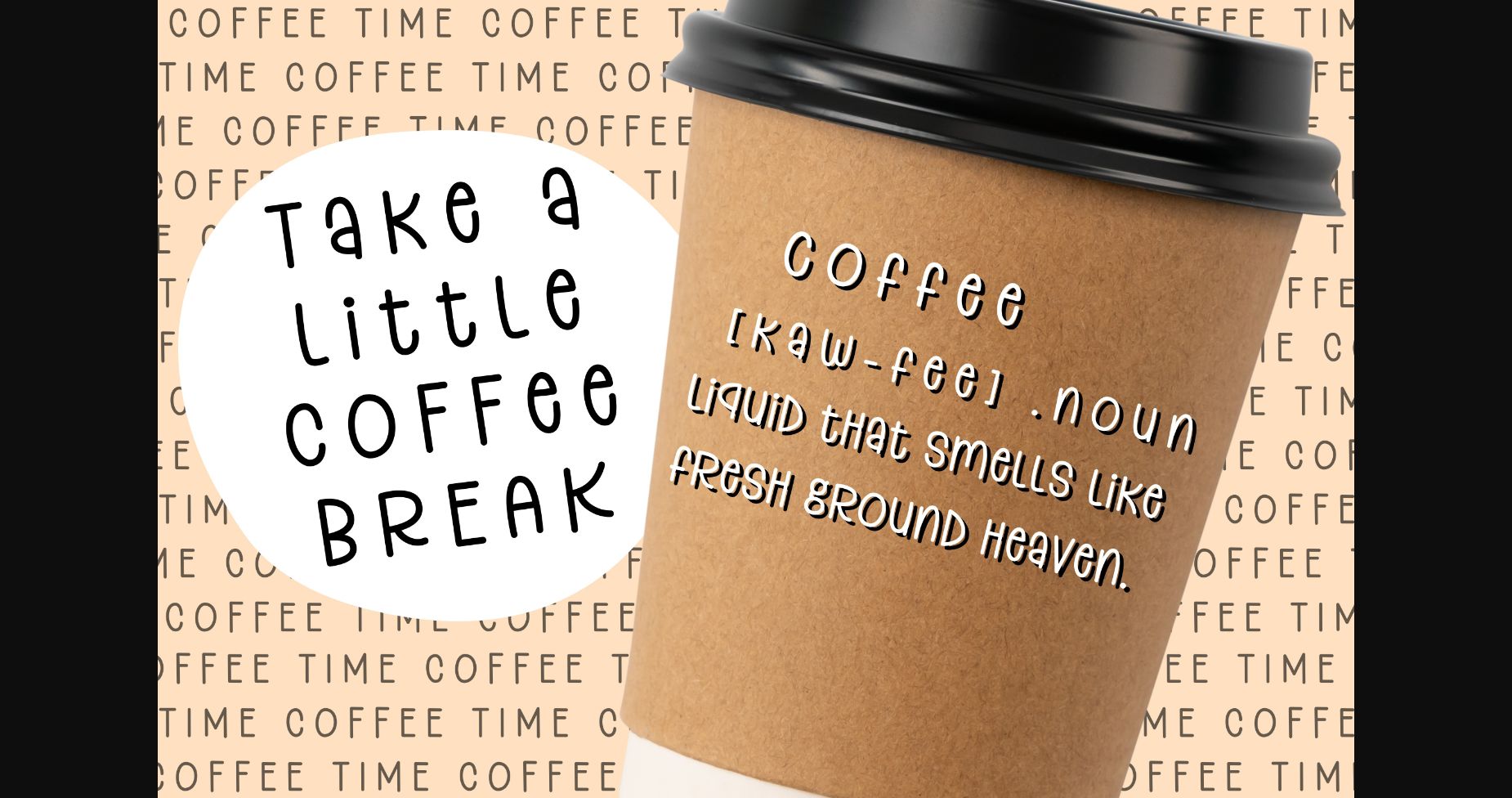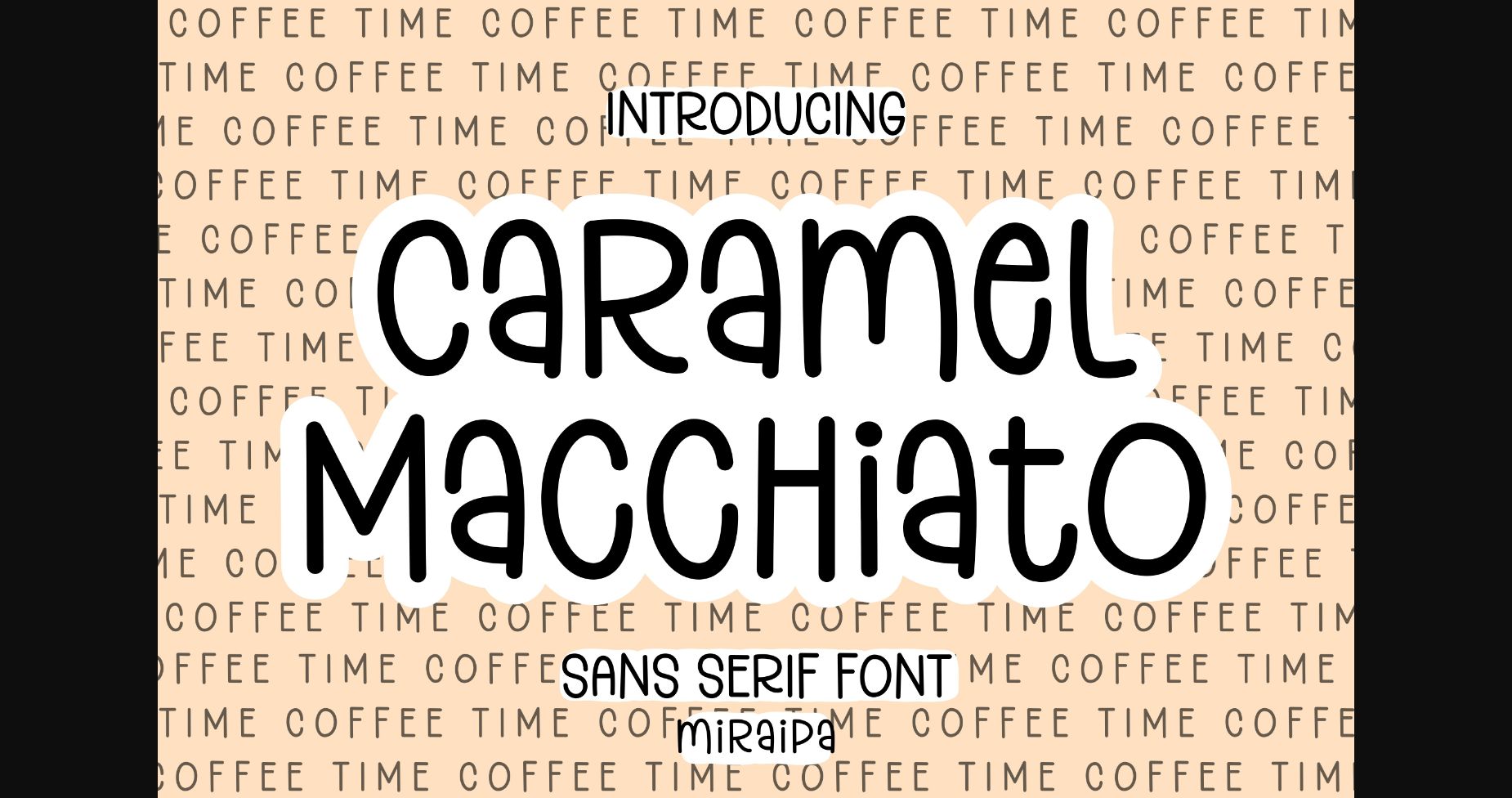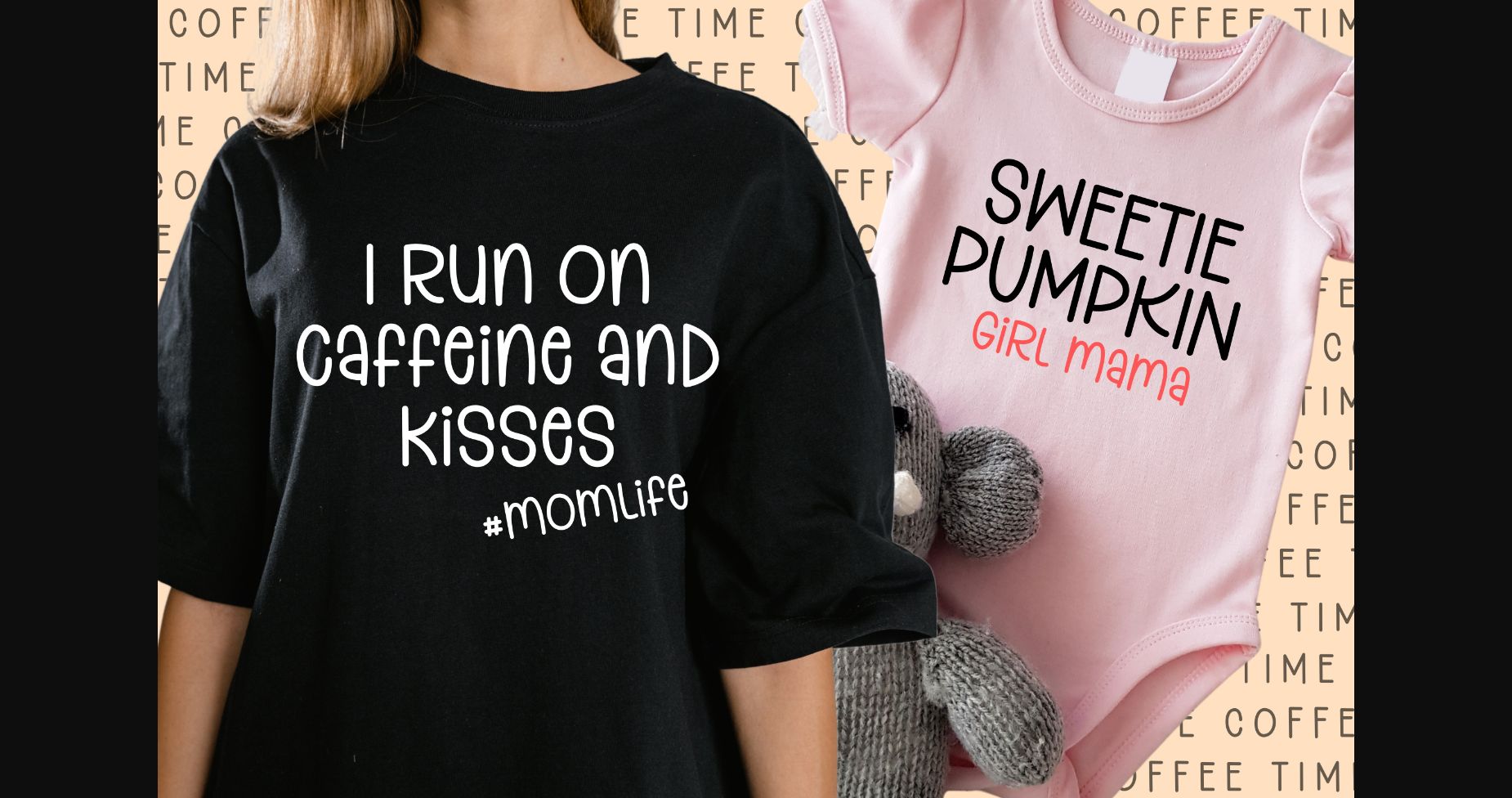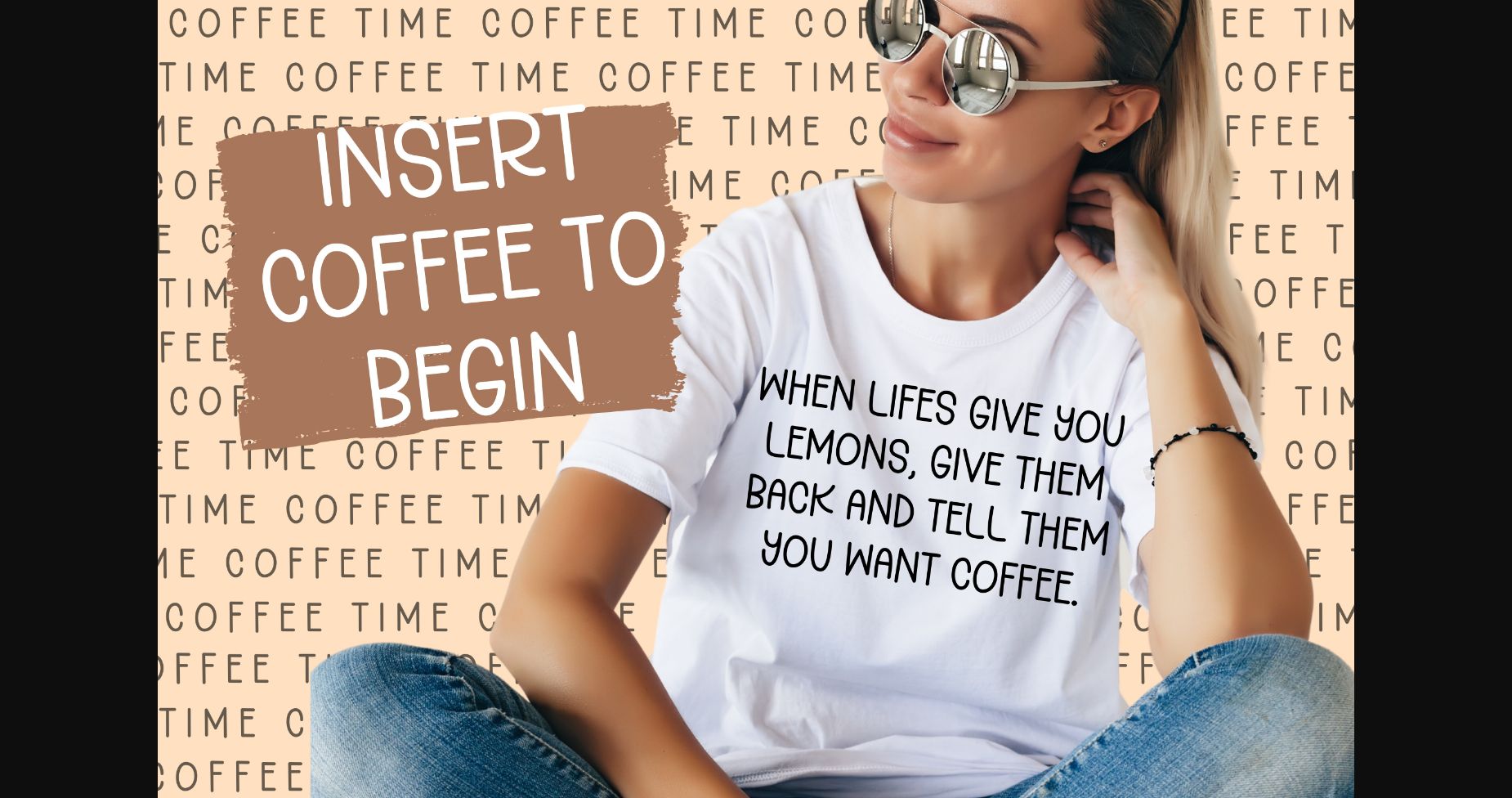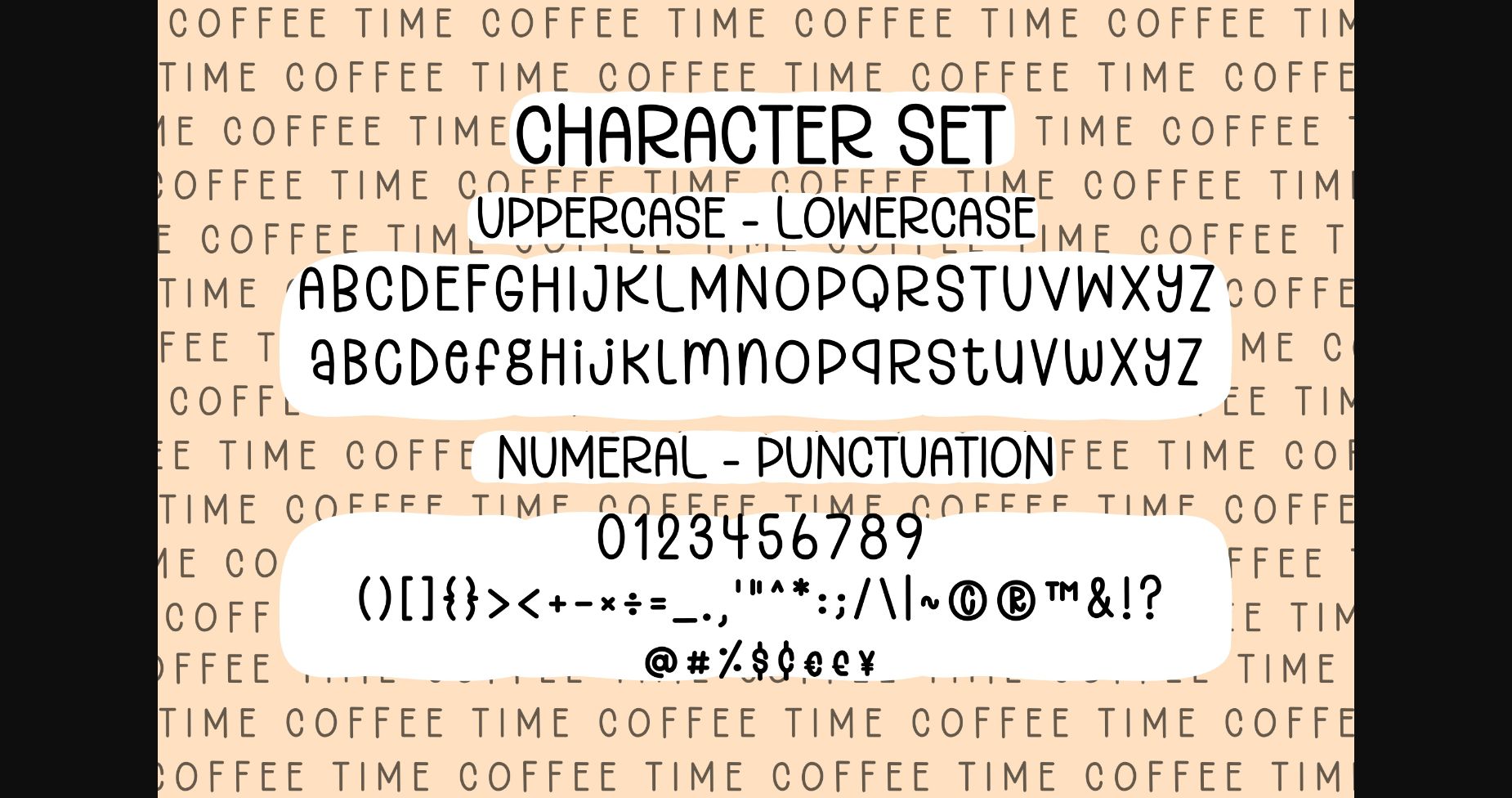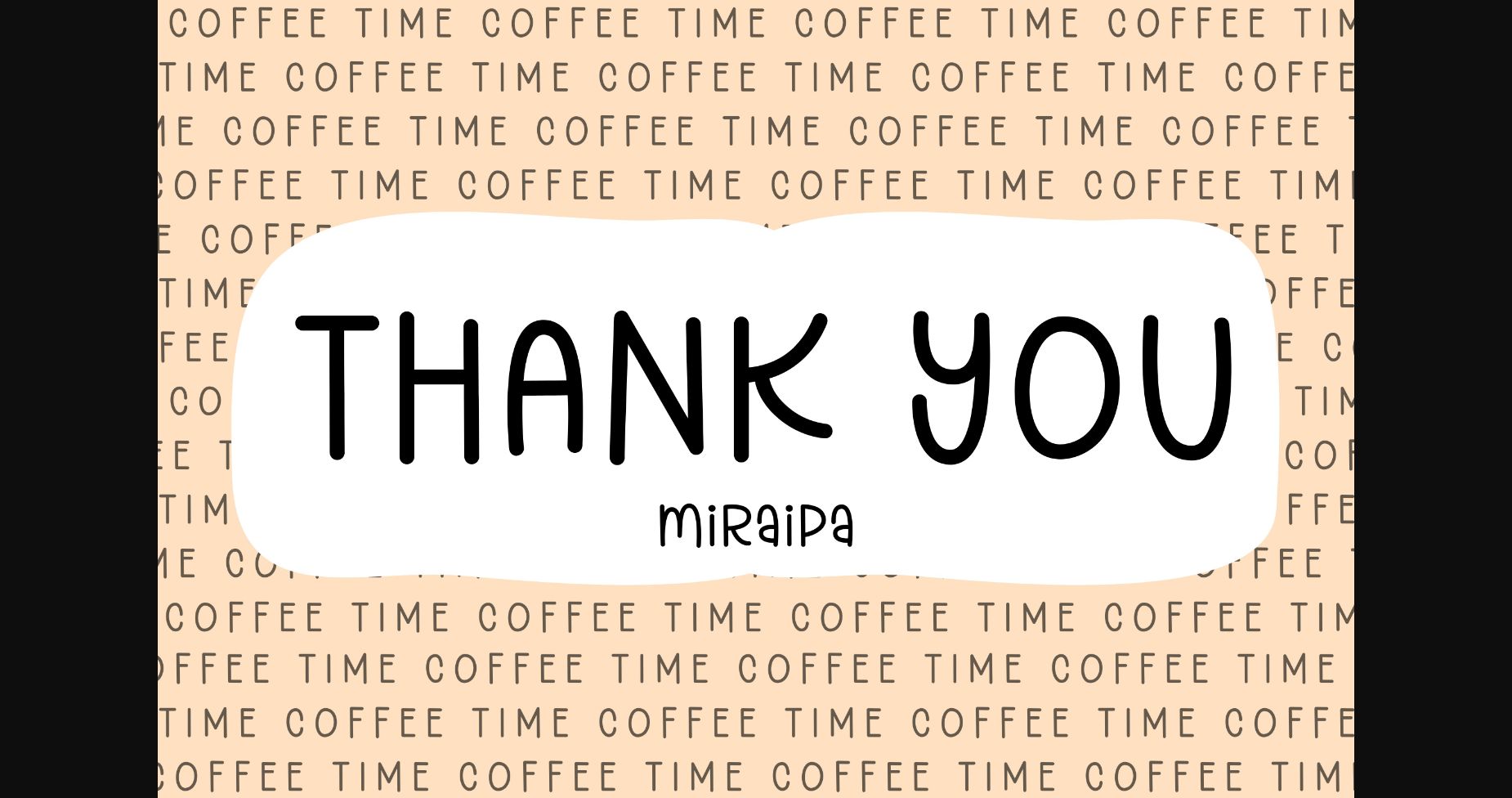
Caramel Macchiato Font
About Caramel Macchiato Font
Caramel Macchiato is designed in a cute and playful sans serif font style. It’s charming, whimsical, and a bit quirky. It is suitable for your perfect projects such as Easter, back to school, wedding, party decoration, invitations, Fall, Halloween, Christmas, posters, blogs, clothing, child-related designs, greeting cards, social media posts or anything that needs a friendly touch.